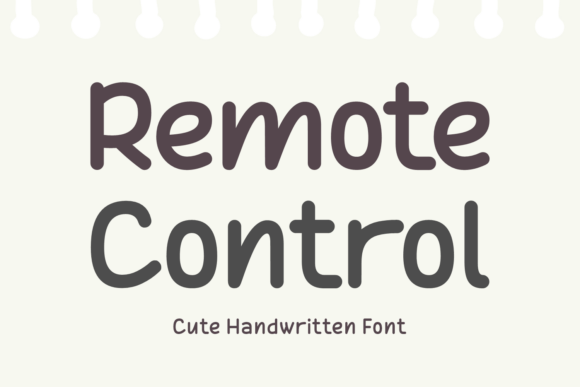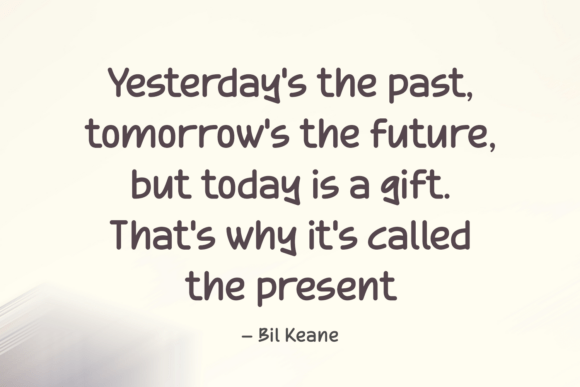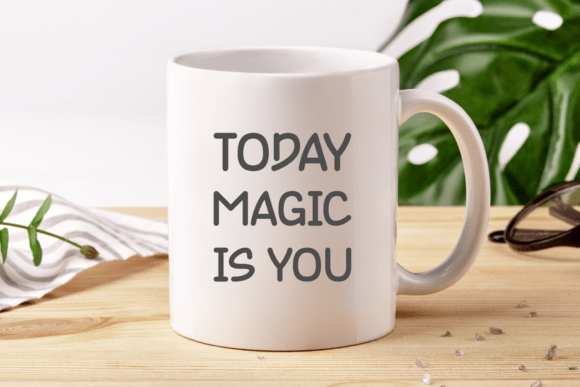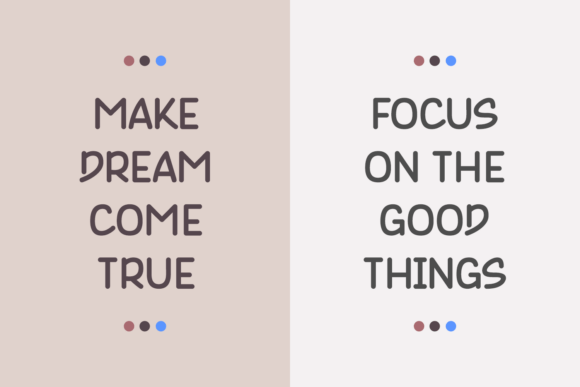
Remote Control Font: A Cute Handwritten Font for Crafts & Cricut Projects
About the Remote Control Font
Elevate your designs with Remote Control Font, a font that combines sophistication with readability. Experience the captivating appeal of the Remote Control font. Crafted by hand, this masterpiece showcases the perfect blend of simplicity and style. Its minimalist design exudes an unmatched beauty, placing it amongst the trendiest and most popular fonts.
The “Remote Control” font commands attention, making it an excellent choice for crafting posters, establishing a brand’s identity, or designing unique app graphics. Its adorable vibes make it a favorite amongst brands catering to moms, enhancing the visual appeal of their creative projects. Unleash unmatched creativity with this modern font, which is perfect for designing logos, crafting banners or for any apparel that needs a chic touch. Discover the versatile and stylish Remote Control font, where elegance meets functionality.
Remote Control Font Usage Examples
Remote Control Font Example